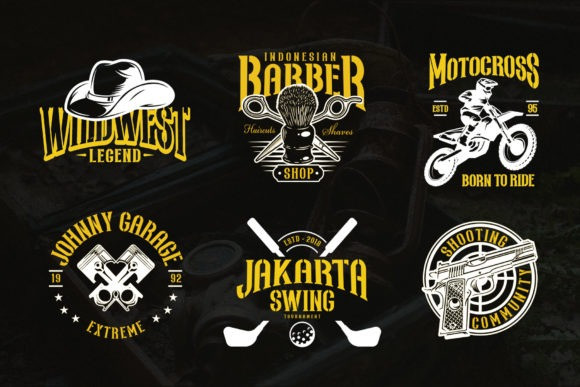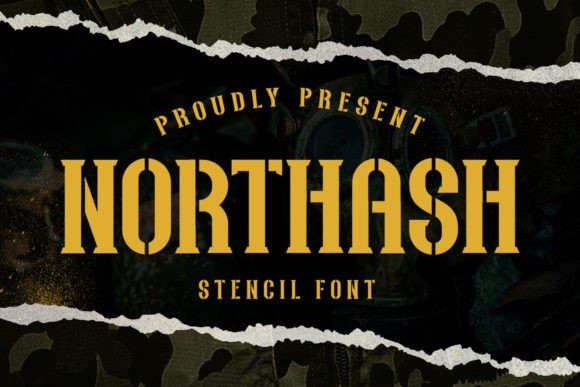
Northash Font
Northas Stencil Font is a unique vintage stencil font inspired by old-school signs and military design.It will be perfect for many themes such as sports, military, urban, wildlife, vintage, and more!